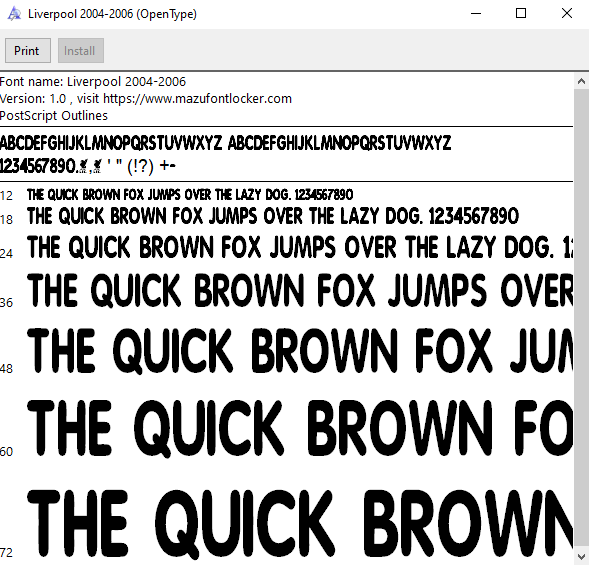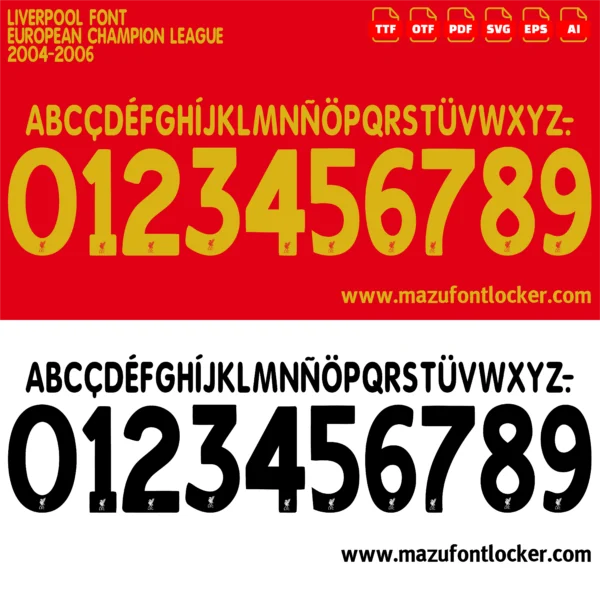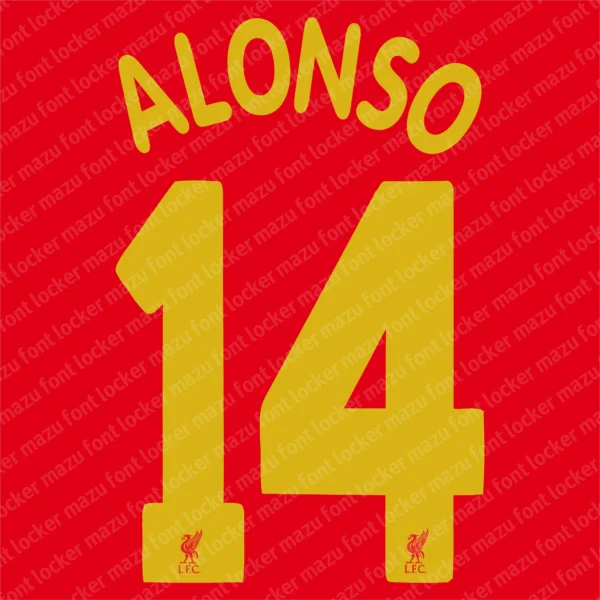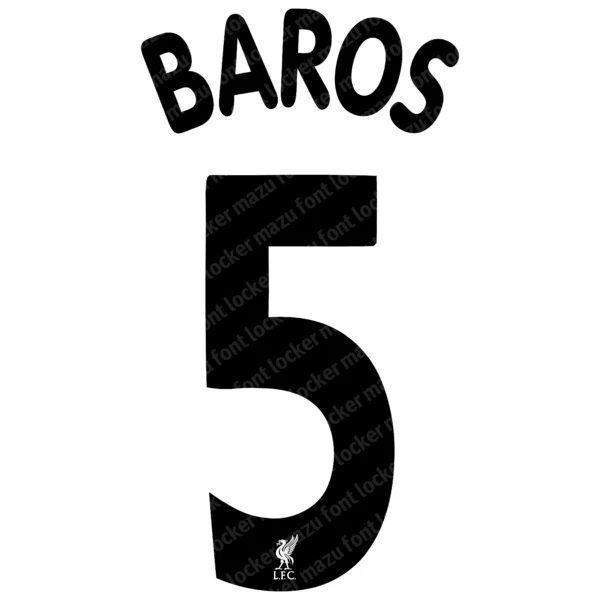
Liverpool 2004-2006 Font Vector – Legendary Istanbul Reds Masterpiece
This font captures the sharp, commanding, and thunderous lettering that perfectly embodies Liverpool’s iconic club identity, proud Merseyside football heritage, never-back-down mentality, and raw European force — delivering unmatched authenticity, premium quality, volcanic energy, and elite continental dominance for professional jersey mockups, dynamic football graphics, premium sports branding, passionate fan creations, and high-end design projects.
Liverpool 2004-2006 Font Vector – Bold Modern Matchday Typeface
The Liverpool 2004-2006 Font Vector is a premium typeface that accurately recreates the distinctive match lettering used by Liverpool FC during the 2004-2006 seasons. This high-quality vector font kit captures the bold, clean, and instantly recognizable typography that defined the visual identity of the Reds during one of the most iconic periods in the club’s modern history.
Designed for professional designers, football enthusiasts, jersey collectors, and passionate Liverpool fans, the Liverpool 2004-2006 Font Vector delivers exceptional authenticity for creating realistic jersey mockups, football merchandise, social media graphics, match posters, squad designs, and custom fan artwork. Every character has been carefully recreated to reflect the powerful and precise visual style that appeared on kits throughout those memorable seasons.
This font stands out thanks to its precise vector construction and authentic club-inspired styling. Every letter and numeral has been meticulously recreated to match the distinctive football lettering aesthetic used by Liverpool FC during the 2004-2006 campaigns.
Whether you’re producing professional football kit templates, custom jersey concepts, or eye-catching football content, the Liverpool 2004-2006 Font Vector delivers a genuine match-ready appearance inspired by the official typeface of one of England’s most historic clubs.
The lettering featured in the Liverpool 2004-2006 Font Vector combines clean geometric lines with bold modern proportions. The result is a premium and highly readable typeface that reflects Liverpool’s contemporary visual identity, sharp professionalism, and the high-intensity atmosphere of English and European football during this era.
• Complete uppercase A–Z alphabet and numbers 0–9 in authentic Liverpool 2004-2006 inspired style
• Special Liverpool badge glyph – Press the “:” (Colon) key to insert the club badge
Liverpool 2004-2006 Era
The 2004-2006 period marked a legendary chapter in Liverpool FC history, highlighted by the unforgettable 2005 UEFA Champions League triumph in Istanbul and continued competitive performances in both domestic and European competitions. The distinctive matchday typography used during these seasons became closely associated with one of the most celebrated eras in the club’s modern history.
The Liverpool 2004-2006 Font Vector is inspired by the distinctive football typography and visual identity used throughout these seasons, making it an excellent choice for designers creating custom jersey concepts, football posters, squad graphics, matchday artwork, and fan-made projects. For official club information, news, fixtures, and historical records, visit the official Liverpool FC website.
The Liverpool 2004-2006 Font Vector is an independently designed typeface package inspired by the official shirt lettering and visual identity associated with Liverpool FC during the 2004-2006 seasons. It has been carefully recreated for football enthusiasts, graphic designers, collectors, jersey creators, and fans producing custom football concepts, digital artwork, and fan-made projects. Please note that this is a fan-made design resource and is not an official product of Liverpool FC, the Premier League, UEFA, or any associated organization.